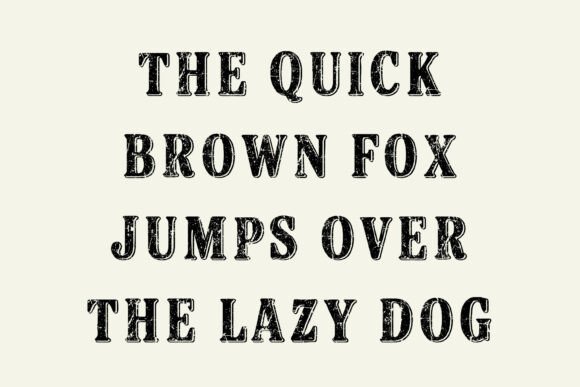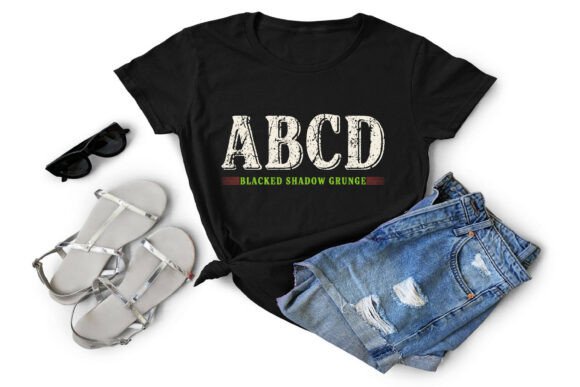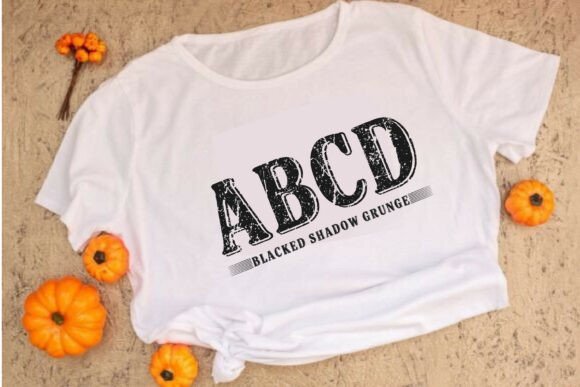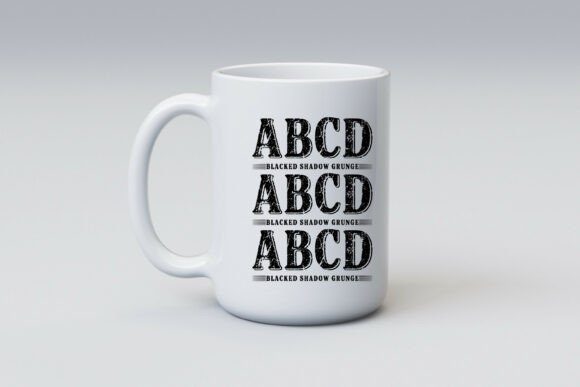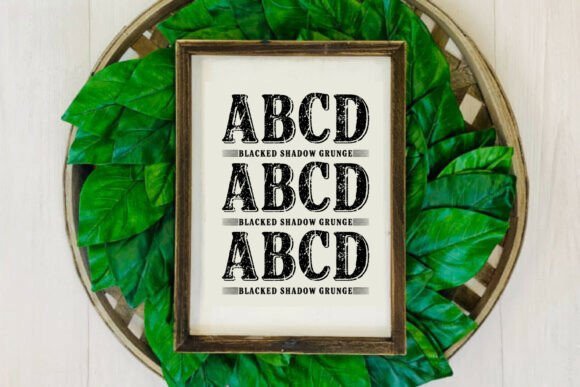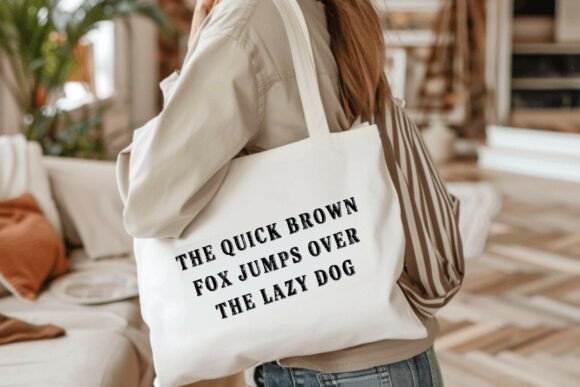
Unleash the Power of Athletic Typography: Introducing Blacked Shadow Grunge Font
In the realm of sports design, typography plays a crucial role in conveying the essence of athleticism, competition, and style. For designers and crafters seeking to elevate their sports-centric designs, Blacked Shadow Grunge font emerges as a game-changer. This remarkable sports font is engineered to make a lasting impact, seamlessly blending athletic chic with a genuine grunge flair.
The Essence of Blacked Shadow Grunge
Blacked Shadow Grunge is more than just a font – it’s a manifesto of athletic style, designed to inspire and empower designers. Its flawlessly rough texture and bold display style make it an ideal choice for enhancing football jerseys, team icons, sporting attire, and dynamic sports-centric designs. Whether you’re creating championship branding, custom lettering, or athletic wear artwork, this font is the go-to solution.
Key Features of Blacked Shadow Grunge
- Uppercase Letters, Numbers, and Symbols: Blacked Shadow Grunge offers a comprehensive set of uppercase letters, numbers, and symbols, ensuring that you have everything you need to create stunning sports designs.
- Genuine Grunge Flair: The font’s rough texture and grunge elements add a unique, athletic aesthetic to your designs, setting them apart from the rest.
Applications of Blacked Shadow Grunge
Blacked Shadow Grunge is an incredibly versatile font, suitable for a wide range of applications, including:
- Football Jerseys: Add a professional touch to your football jersey designs with the font’s bold, athletic style.
- Team Icons: Create stunning team icons that exude confidence and athleticism.
- Sporting Attire: Design eye-catching sporting attire, such as basketball jerseys, soccer jerseys, and more.
- Dynamic Sports-Centric Designs: Use Blacked Shadow Grunge to create dynamic sports-centric designs, including posters, flyers, and social media graphics.
- Custom Lettering: Add a personal touch to your designs with custom lettering that showcases your creativity.
- Athletic Wear Artwork: Create stunning athletic wear artwork that showcases your brand’s style and personality.
Why Choose Blacked Shadow Grunge?
In a crowded market, Blacked Shadow Grunge stands out as a holistic solution for sports designers and crafters. Its unique blend of athletic chic and grunge flair makes it an essential tool for anyone looking to create stunning sports designs. With its adaptable nature, comprehensive character set, and compatibility with various design software, Blacked Shadow Grunge is the pinnacle of sports-themed typography.
Blacked Shadow Grunge font is a game-changer for designers and crafters seeking to elevate their sports-centric designs. Its bold display style, genuine grunge flair, and adaptable nature make it an ideal choice for a wide range of applications. Whether you’re creating championship branding, custom lettering, or athletic wear artwork, Blacked Shadow Grunge is the go-to solution. With its comprehensive character set and compatibility with various design software, this font is an essential tool that no contemporary sports designer should miss out on.